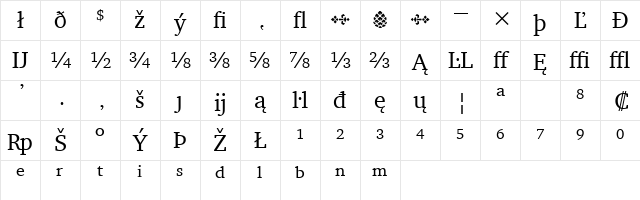
Charter Ext BT Extension
Complete Charter Ext BT Extension glyph index. Displaying only characters natively supported by Charter Ext BT Extension font.
Design Context for Charter Ext BT
Charter Ext BT is a composed and adaptable typeface that performs quietly and consistently across a wide range of design contexts.
Pro Tip: Use Charter Ext BT in both headline and body roles to test its range before committing to a single application.